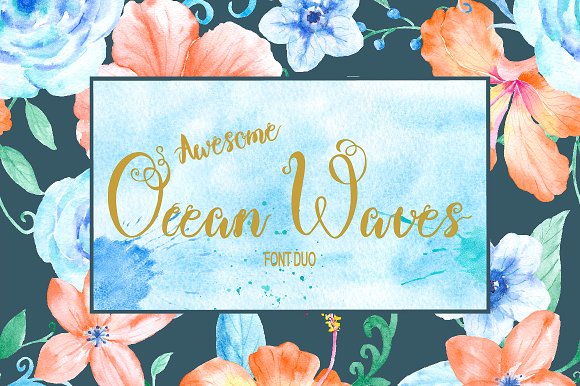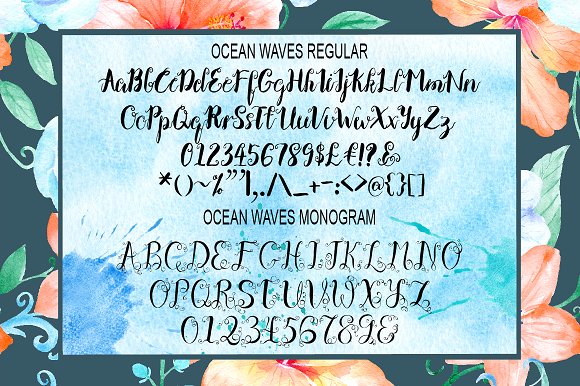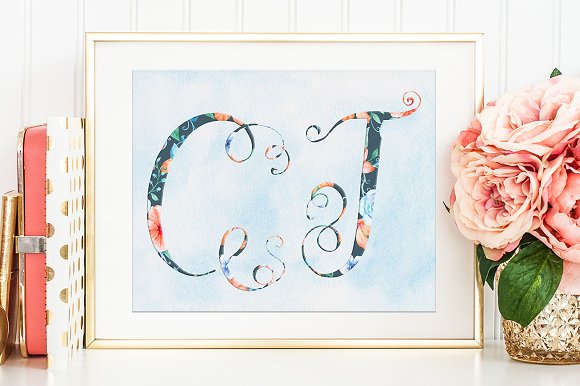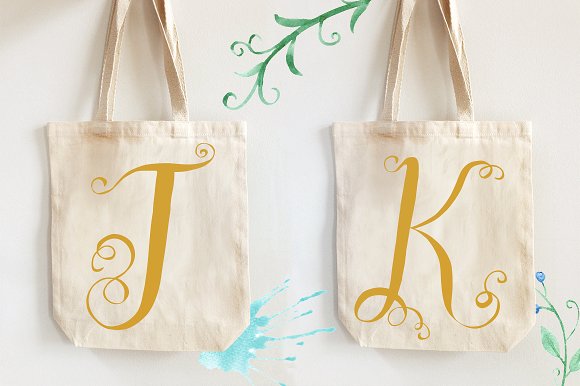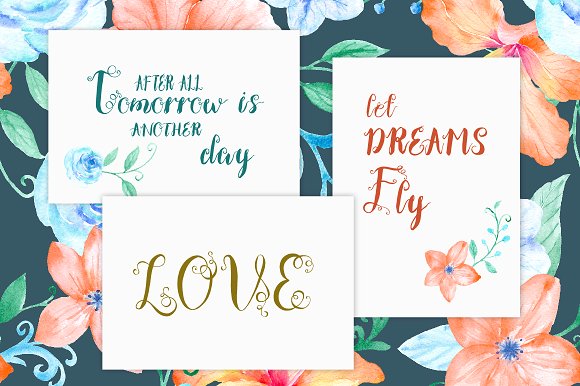
Ocean Waves Brush Font Duo
Ocean Waves Font Duo
It is my pleasure to present the ocean waves font duo including Ocean Waves Regular and Ocean Waves Monograms. They are super curly feminine brush fonts, hand crafted with love. They are perfect for making wedding invitations, branding, labels, greeting cards, and typography.
Ocean Waves Regular includes upper and lower case alphabets, numbers and punctuations marks. Ocean Waves Monogram includes upper case alphabet and numbers.